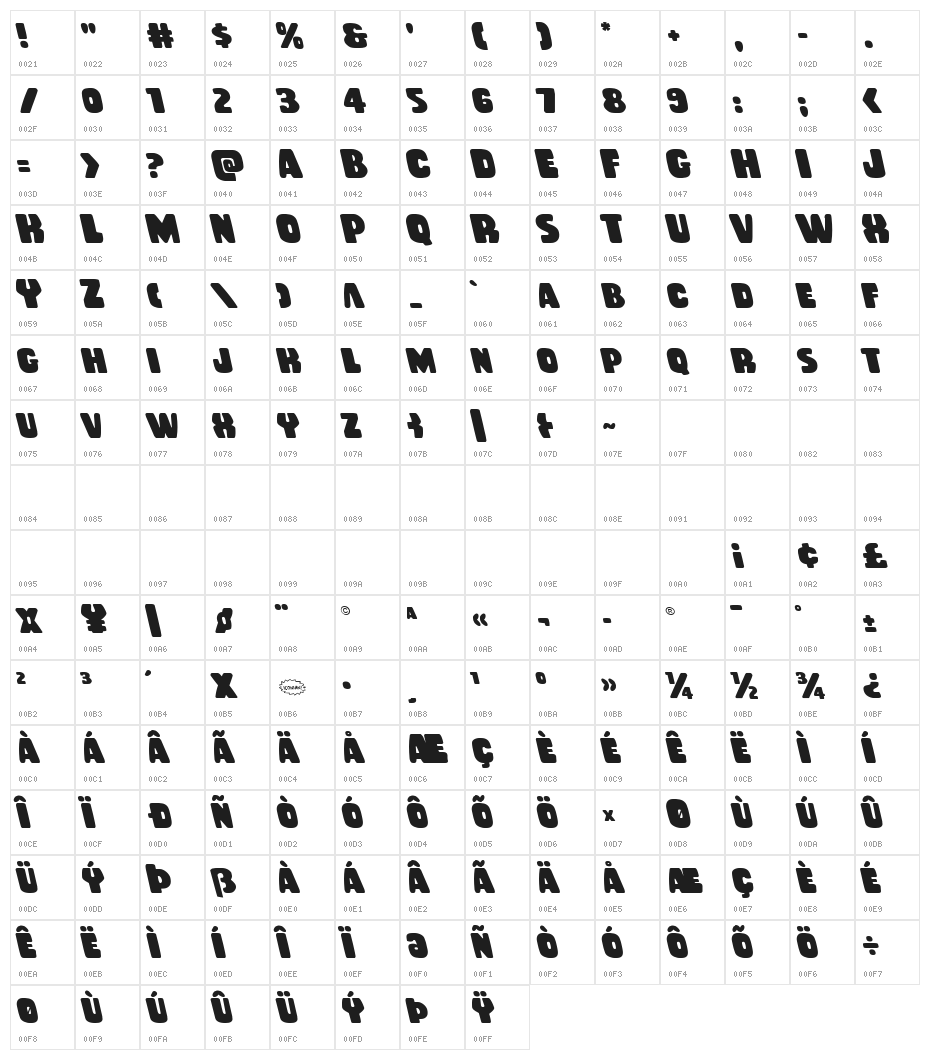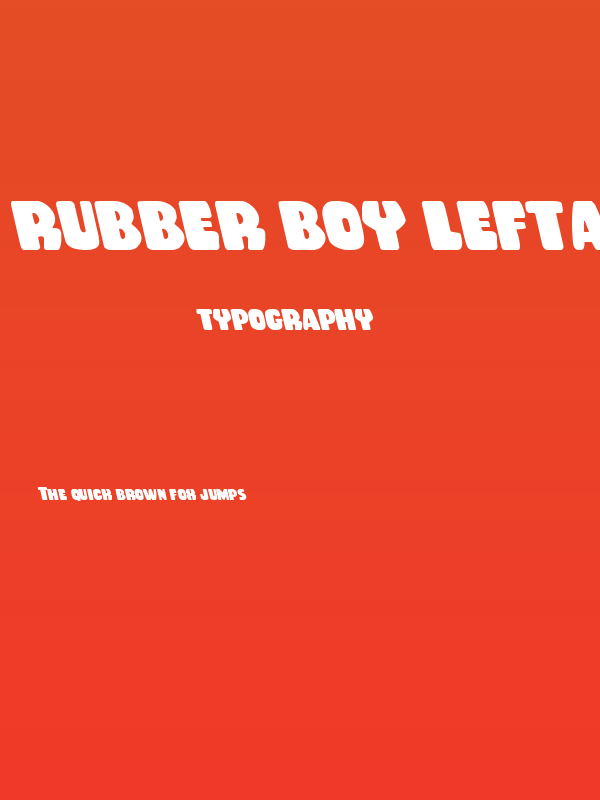
Rubber Boy Leftalic Font
Rubber Boy Leftalic Description
This font features a bold and playful style with a strong presence. The characters are thick and rounded, giving them a soft and approachable appearance. The letters are slightly slanted, adding a dynamic and energetic feel. The overall design is reminiscent of retro or comic book styles, making it ideal for projects that require a fun and informal touch. The numbers and special characters maintain the same bold and rounded characteristics, ensuring consistency across all elements. This font is perfect for capturing attention and conveying a sense of fun and creativity.
| Overall Style | Playful, Retro, Comic |
| Proposed Projects | Ideal for children's books, comic strips, playful branding, and eye-catching posters. |